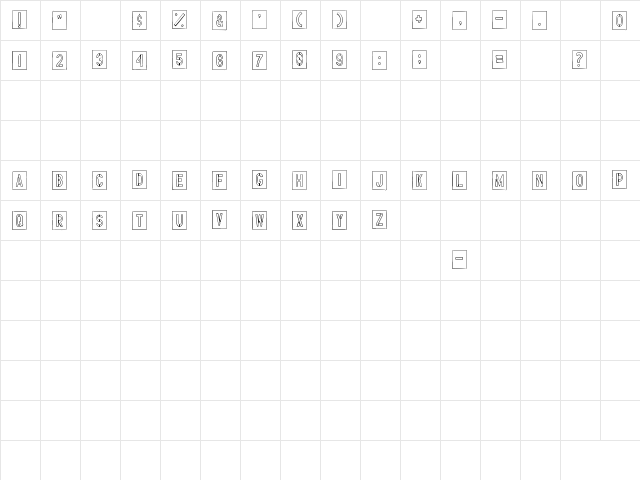
2Peas stencil Regular
Design Context for 2Peas stencil Typeface
2Peas stencil has the rough pragmatism of spray-painted stencil signage, adding a raw, street-level authenticity to designs.
Ideal for industrial branding, streetwear, military-adjacent aesthetics, and urban signage projects.
Pro Tip: Pair 2Peas stencil with raw, utilitarian design elements — exposed concrete textures, flat colour, and minimal ornamentation suit it well.